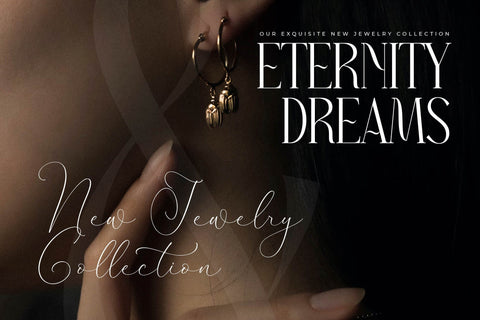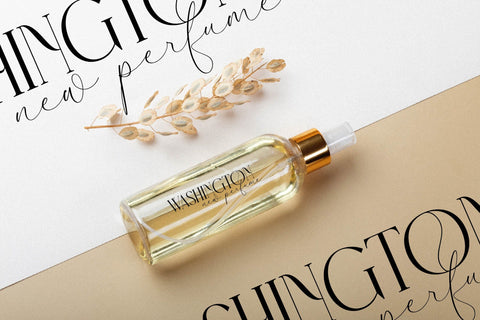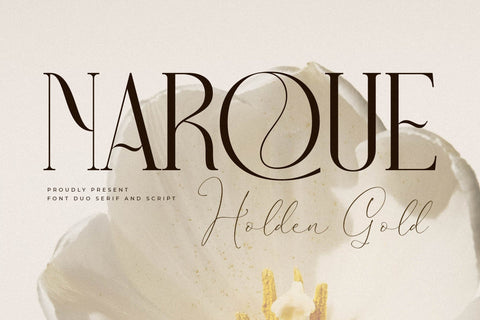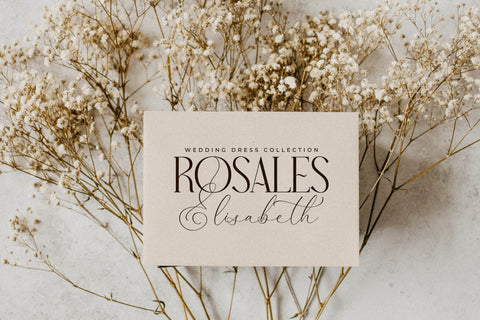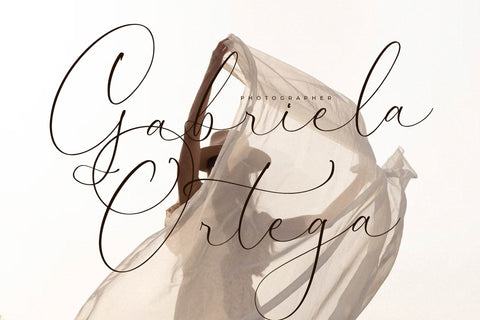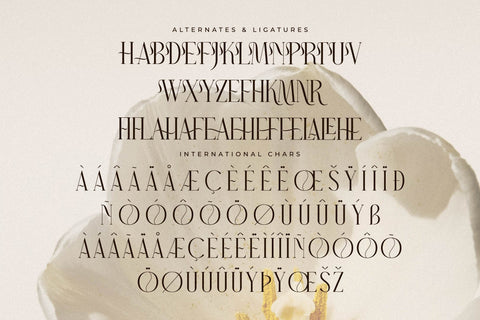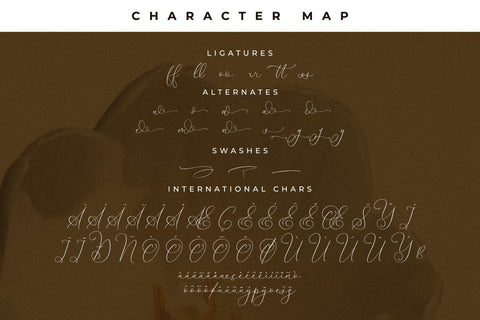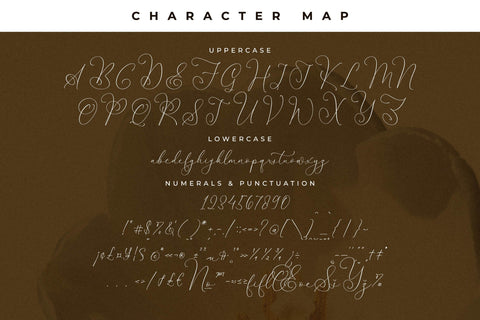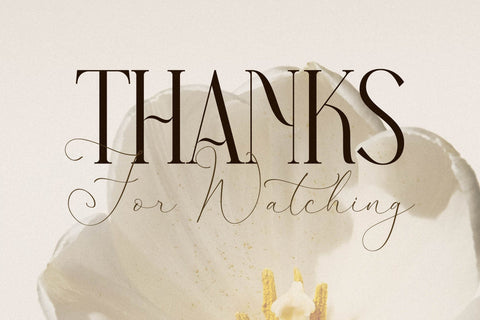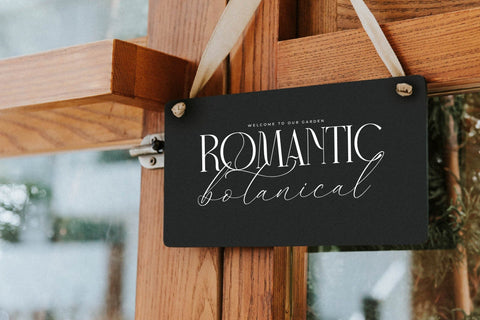
Narque Holden Gold Font Duo
Proudly present Narque Holden Gold Font Duo , created by Storytype,
A serif and script typeface that has own unique style & modern look.